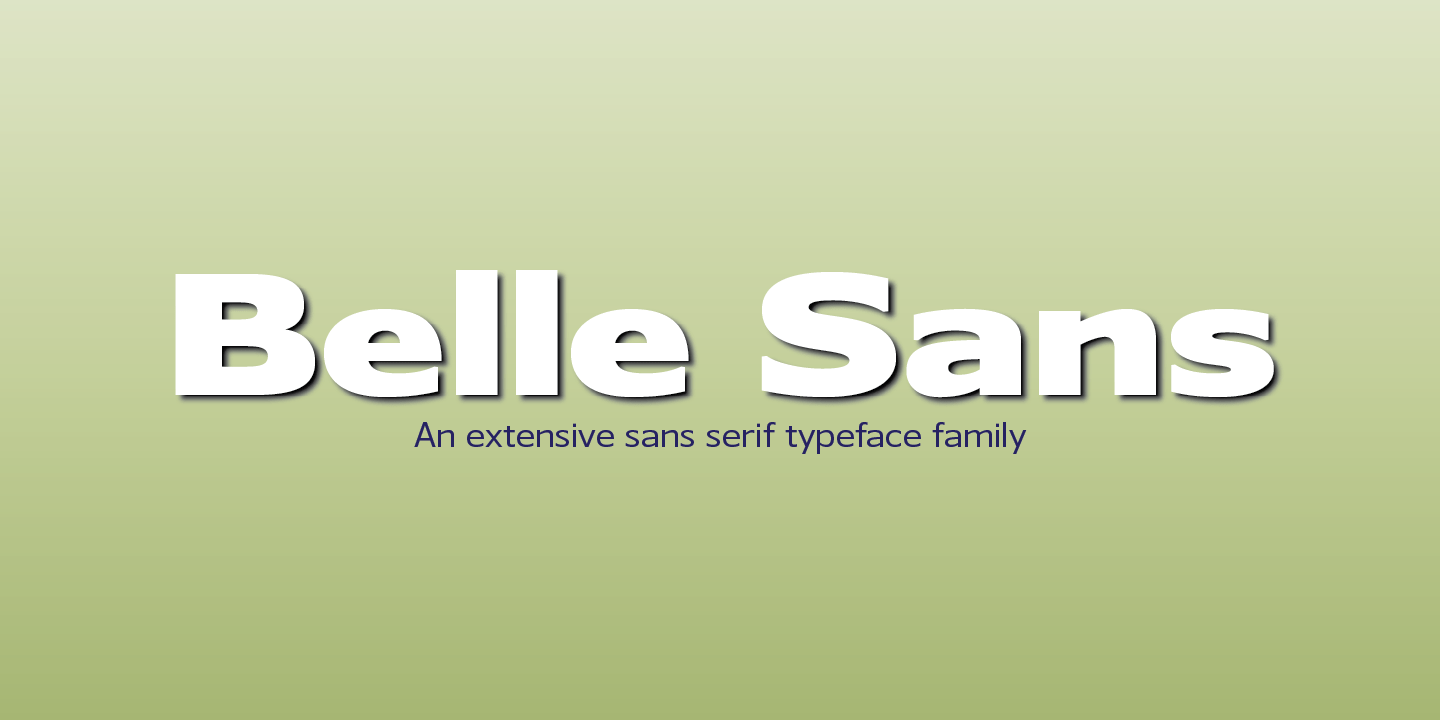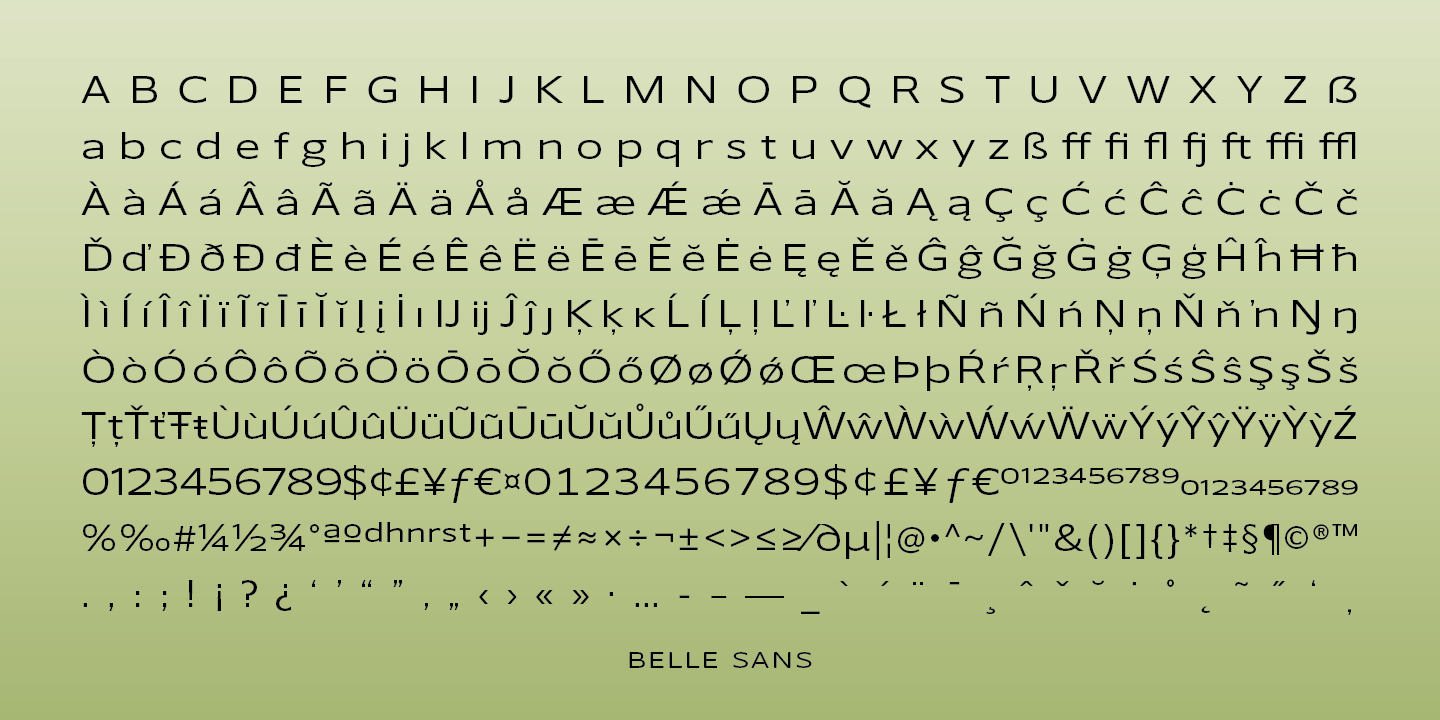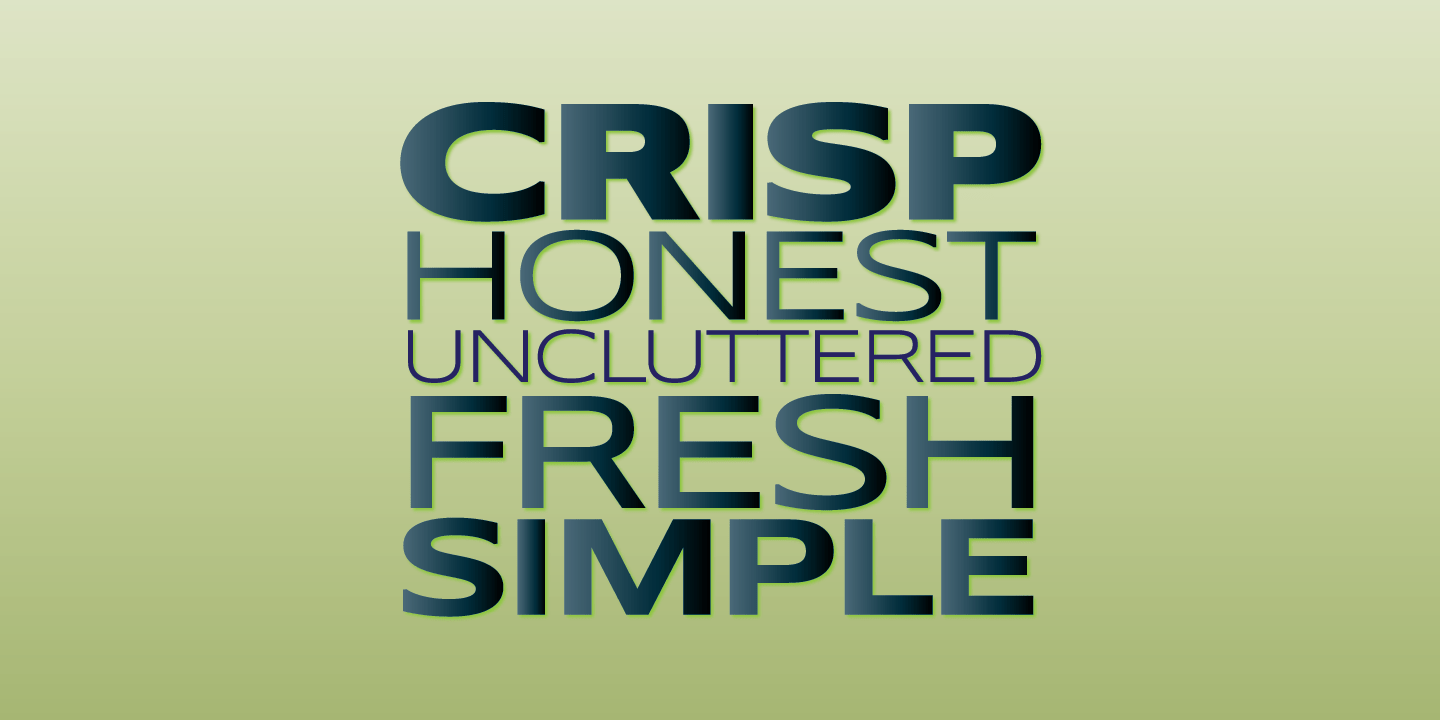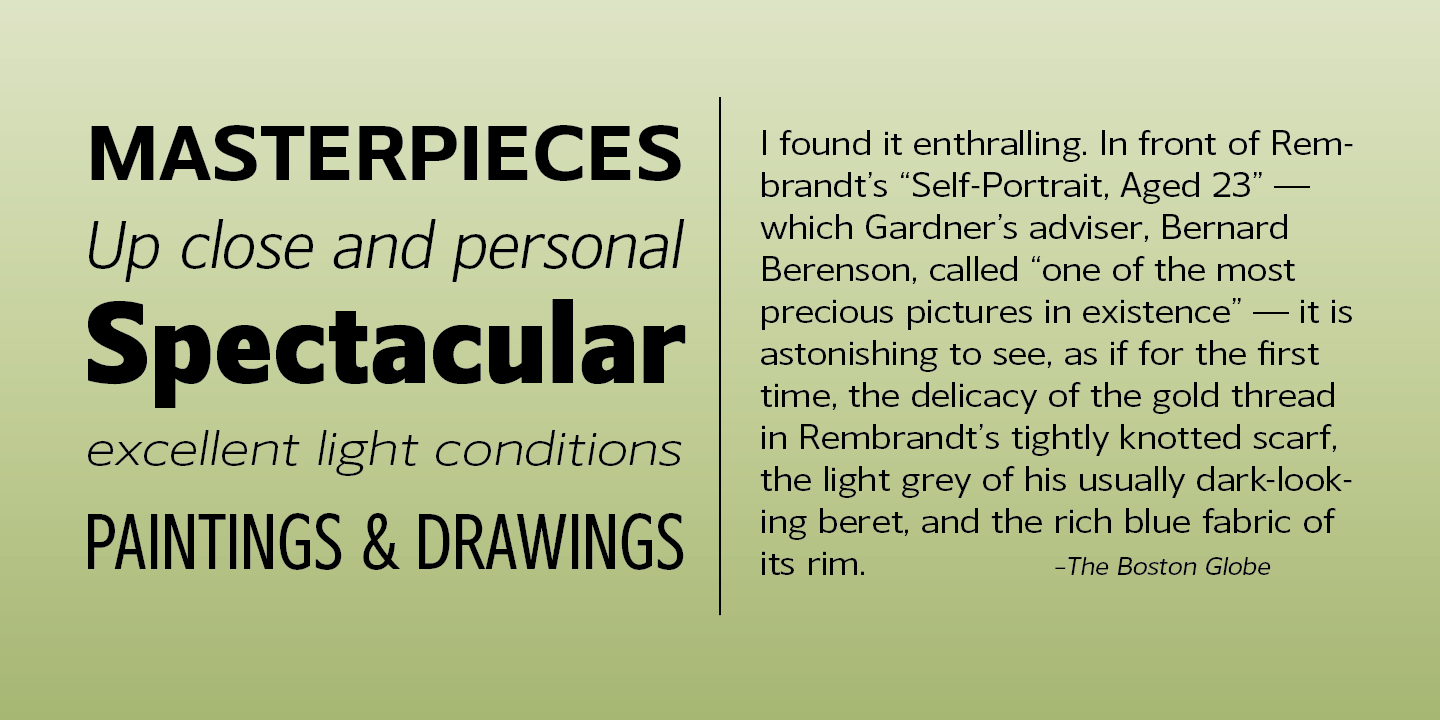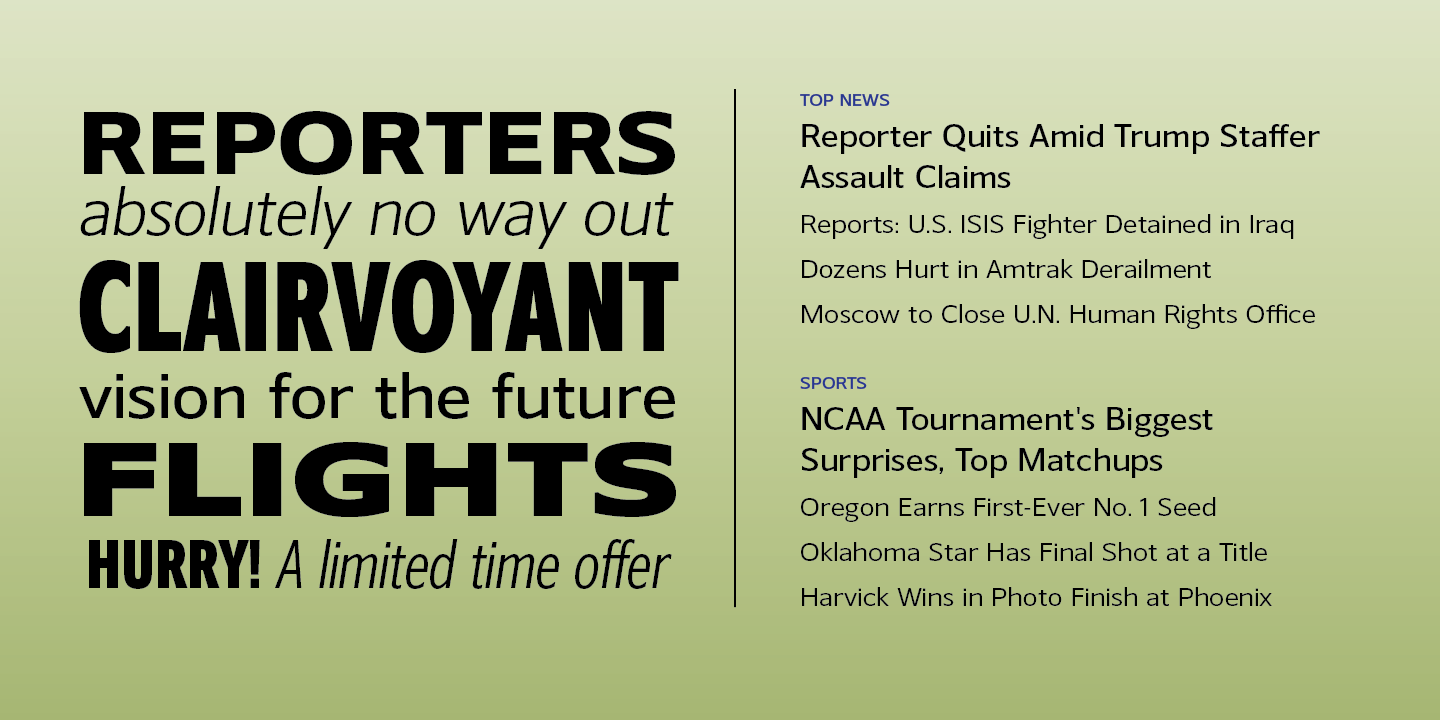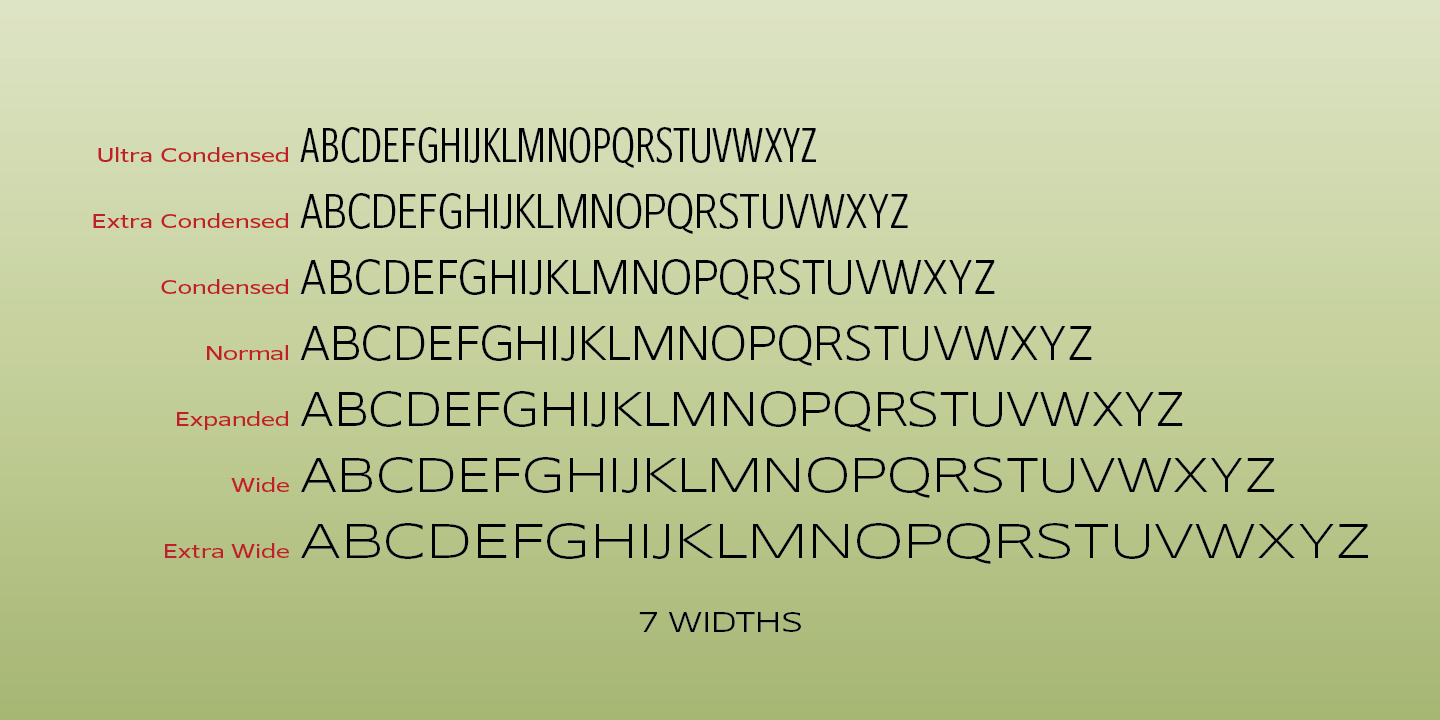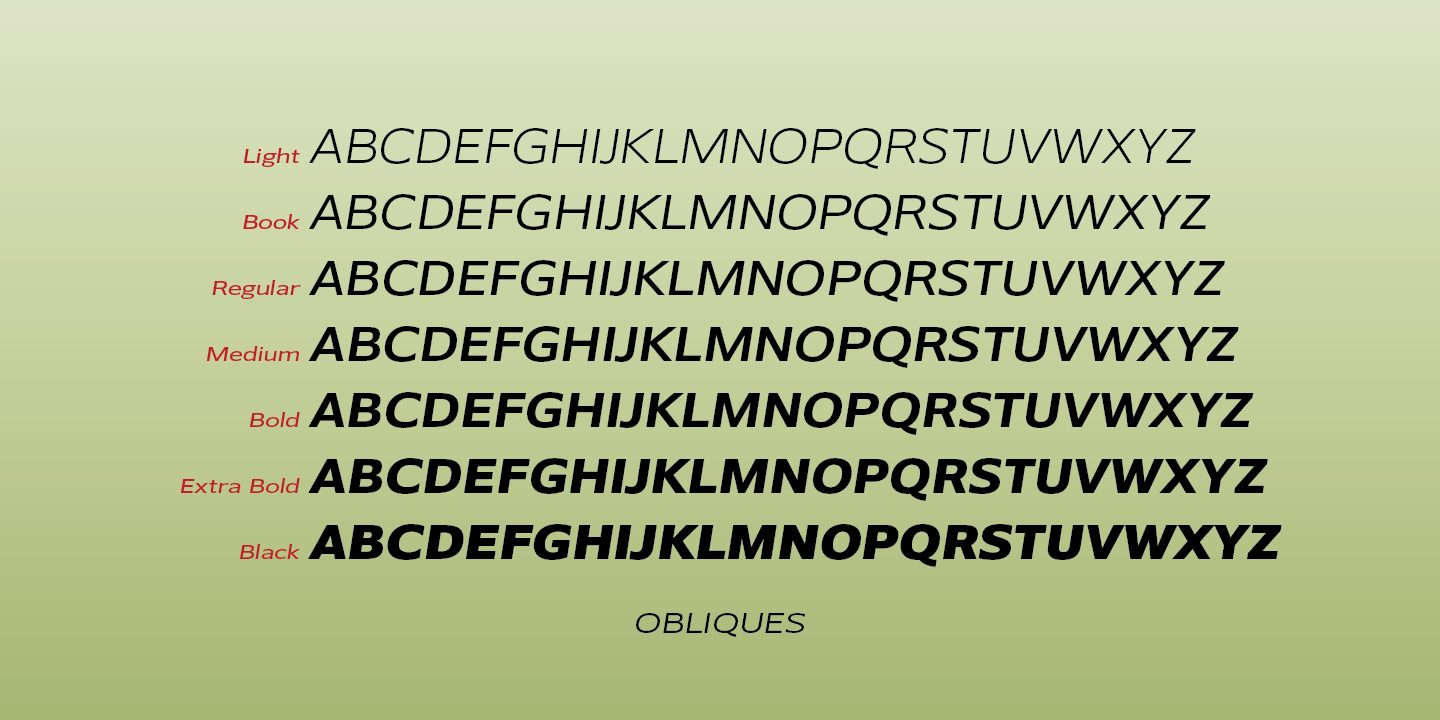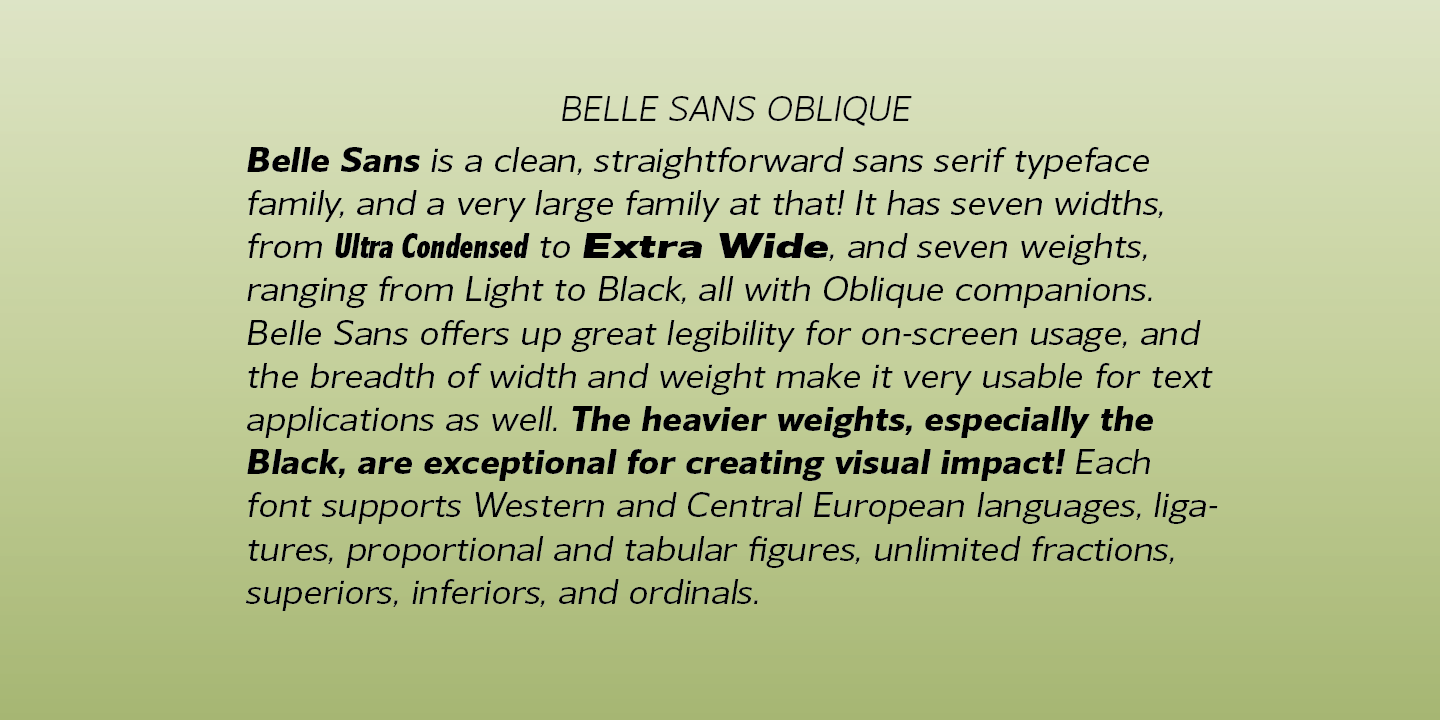
Belle Sans
Font Family by Park Street Studio
Belle Sans is a clean, straightforward sans serif typeface family, and a very large family at that! It has seven widths, from Ultra Condensed to Extra Wide, and seven weights, ranging from Light to Black, all with Oblique companions. Belle Sans offers up great legibility for on-screen usage, and the breadth of width and weight make it very usable for text as well as headlines. The heavier weights, especially the Black, are exceptional for creating visual impact! Each font supports Western and Central European languages, ligatures, tabular figures, unlimited fractions, superiors & inferiors, and ordinals.